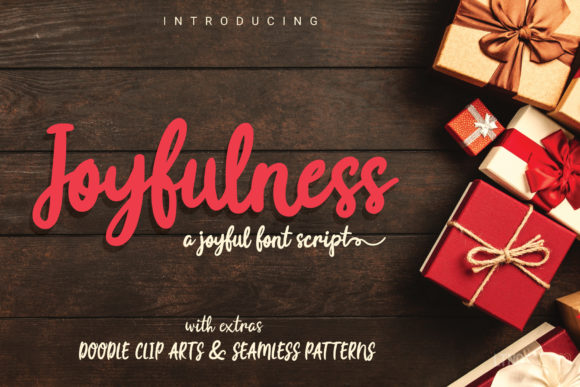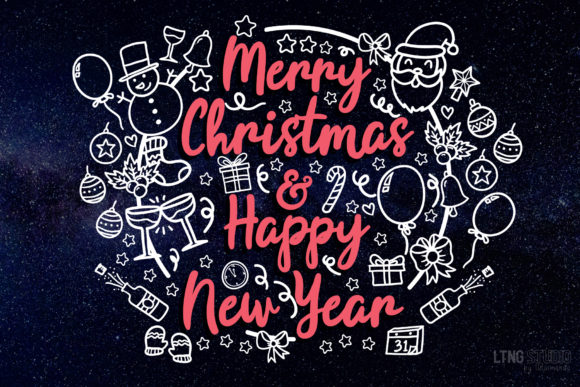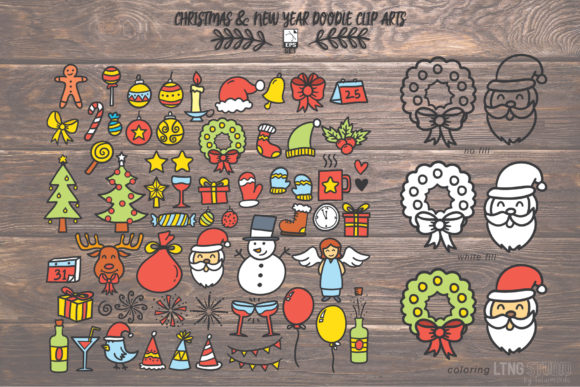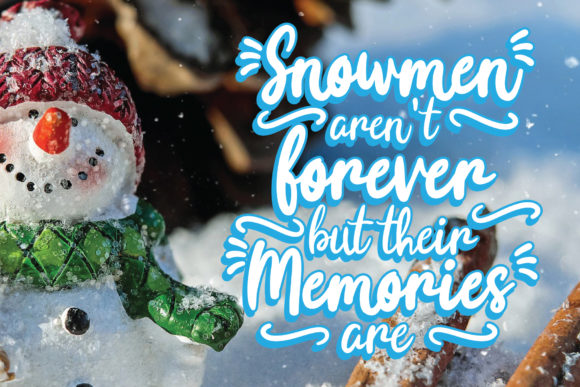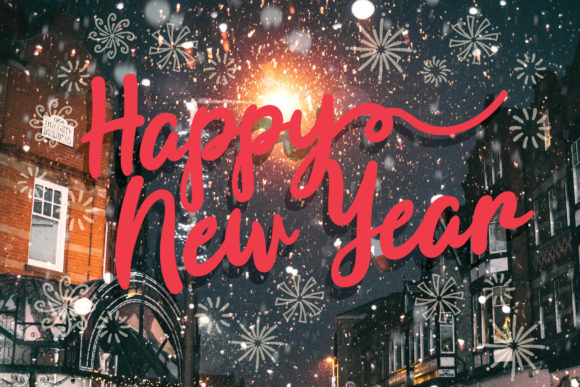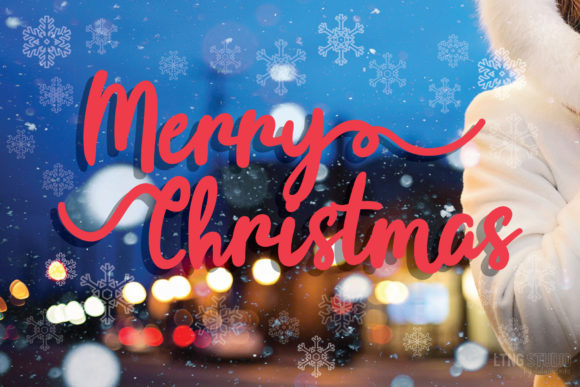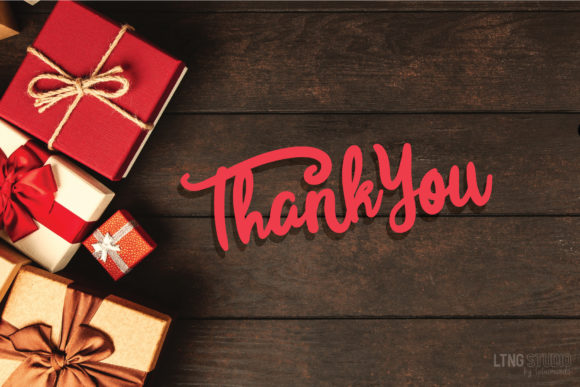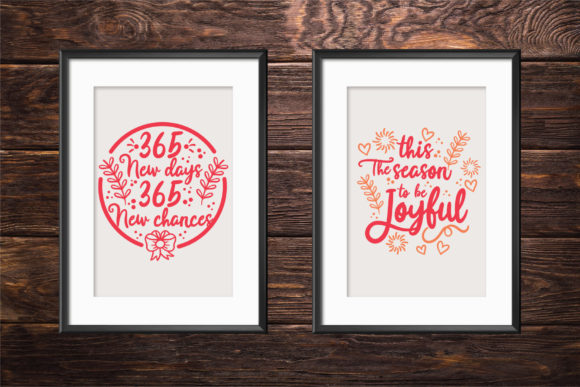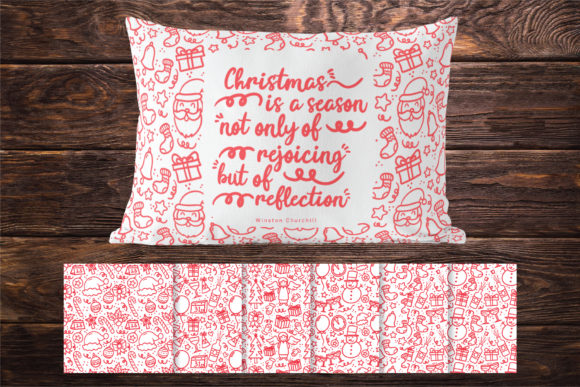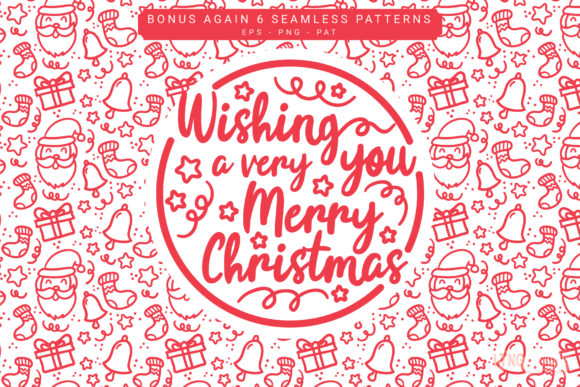
Joyfulness Script Font
About Joyfulness Script Font
Get ready for your joyful holiday with this new collection! This Joyfulness script comes in 3 weights: regular, italic, and semi light, and 1 font with elements to spice up your design. Also included are beautiful doodle clip-art’s in an outline and color filled style as a bonus.
Combine the Joyfulness with the bonus doodle cliparts and seamless patterns to make nice designs for your holidays!